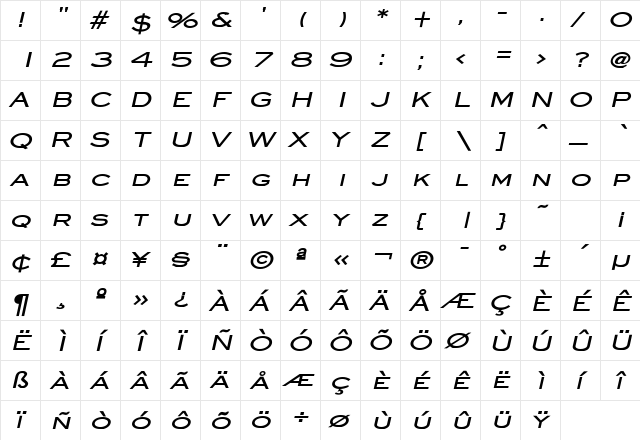
Eye glass Wide Bold Italic
Design Context for Eye glass Wide Typeface
Eye glass Wide is a composed and adaptable typeface that performs quietly and consistently across a wide range of design contexts. The slanted form adds forward momentum and visual energy. The heavy weight commands attention and anchors typographic hierarchies.
Pro Tip: Try Eye glass Wide for annotation and caption copy alongside an upright companion — the contrast in angle creates a dynamic but ordered typographic system.